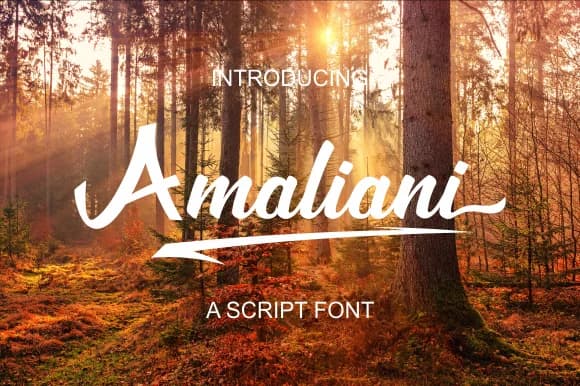
Amaliani by Febri Creative is a fluid brush script that captures the spontaneity of hand-lettering with refined polish and careful craftsmanship. Born from detailed brush pen strokes, this typeface brings organic warmth to any project while maintaining excellent legibility across digital and print applications. This script font shines in personalized contexts where authentic character and visual distinction matter most. It's particularly suited for wedding invitation suites, where the flowing letterforms add romantic elegance to save-the-dates, programs, and ceremony details cards. Boutique brands use Amaliani for packaging labels, cosmetics branding, and luxury product boxes that benefit from the sophisticated handmade aesthetic. Small business owners find success pairing it with stationery designs, letterheads, business cards, and thank-you notes, that demand personal touch and professional polish. DIY craft enthusiasts and Etsy sellers favor this font for product photography overlays, seasonal greeting designs, and handmade gift labels that need visual distinction on crowded digital storefronts. The brushwork remains consistent throughout the character set, ensuring a cohesive look whether you're setting headlines or body copy in smaller sizes. Its weight and balance make it work equally well as a display font or subtle typographic accent alongside clean sans-serif typefaces. Discover Amaliani on Creative Fabrica and bring handcrafted charm and authenticity to your next creative project.
- Elegant, Flowing, Amaliani
Amaliani Font is a script font that shines as a display or heading face. Pair it with a clean sans-serif or serif font for body text β the contrast creates a clear hierarchy while the two styles stay balanced and easy to read.